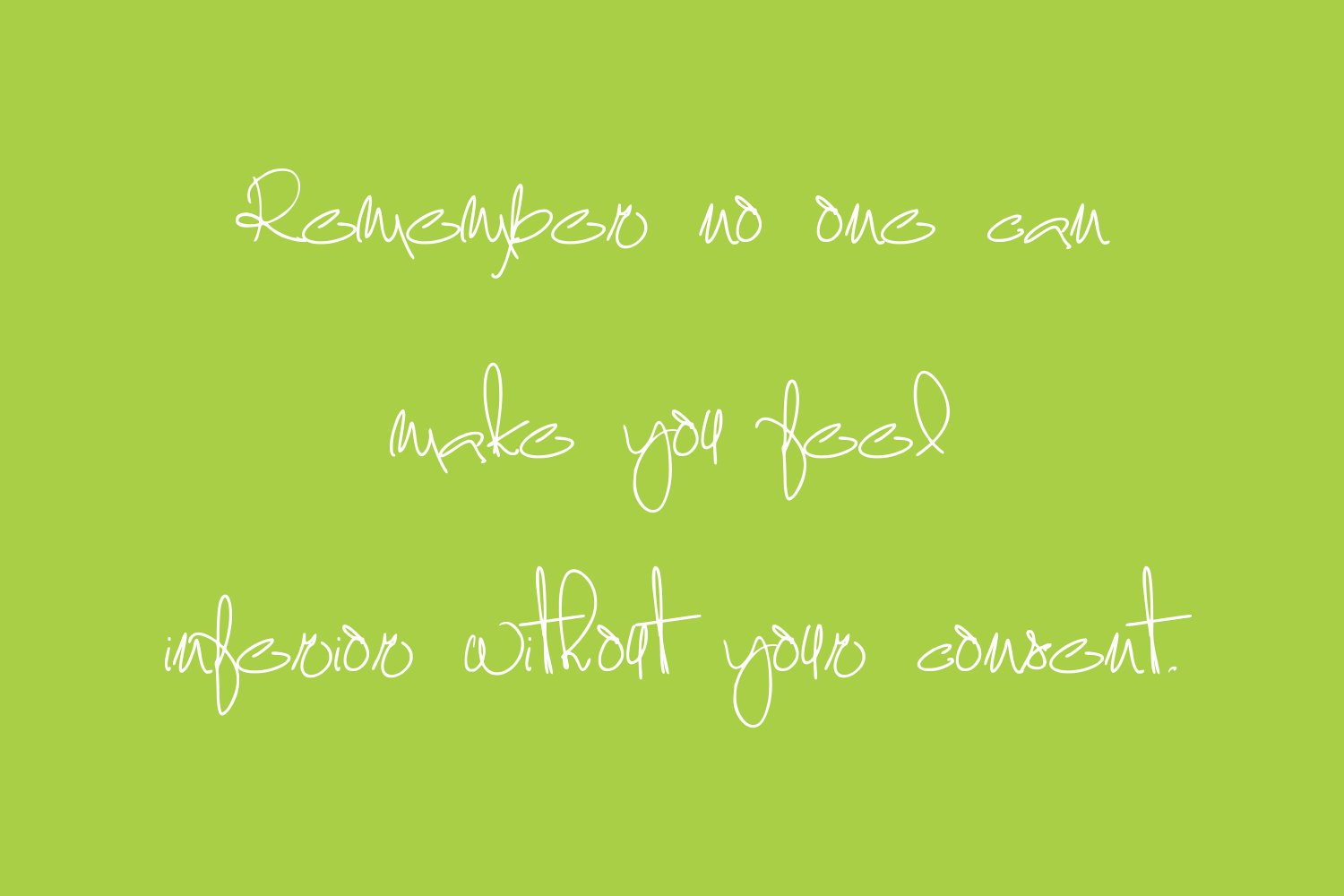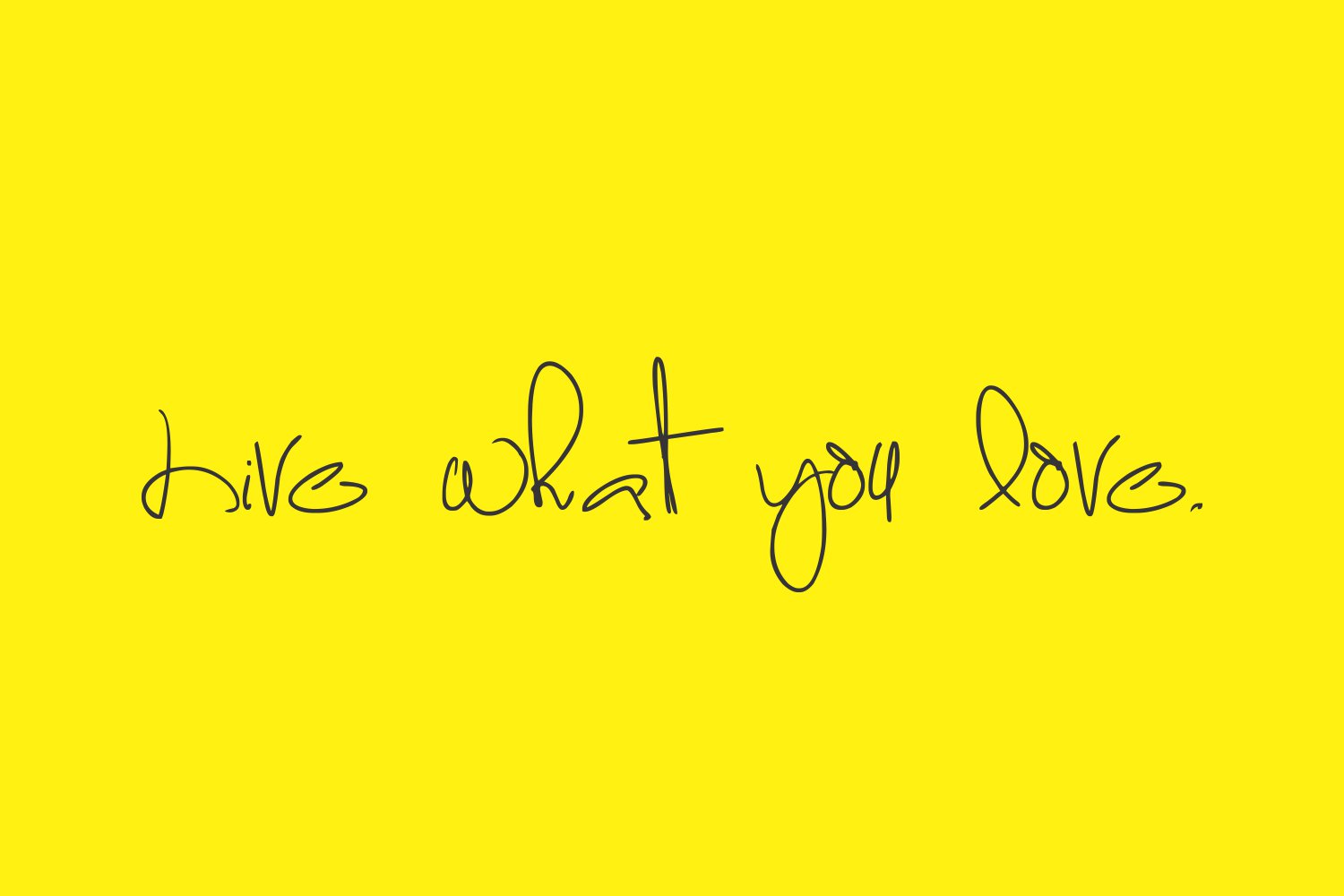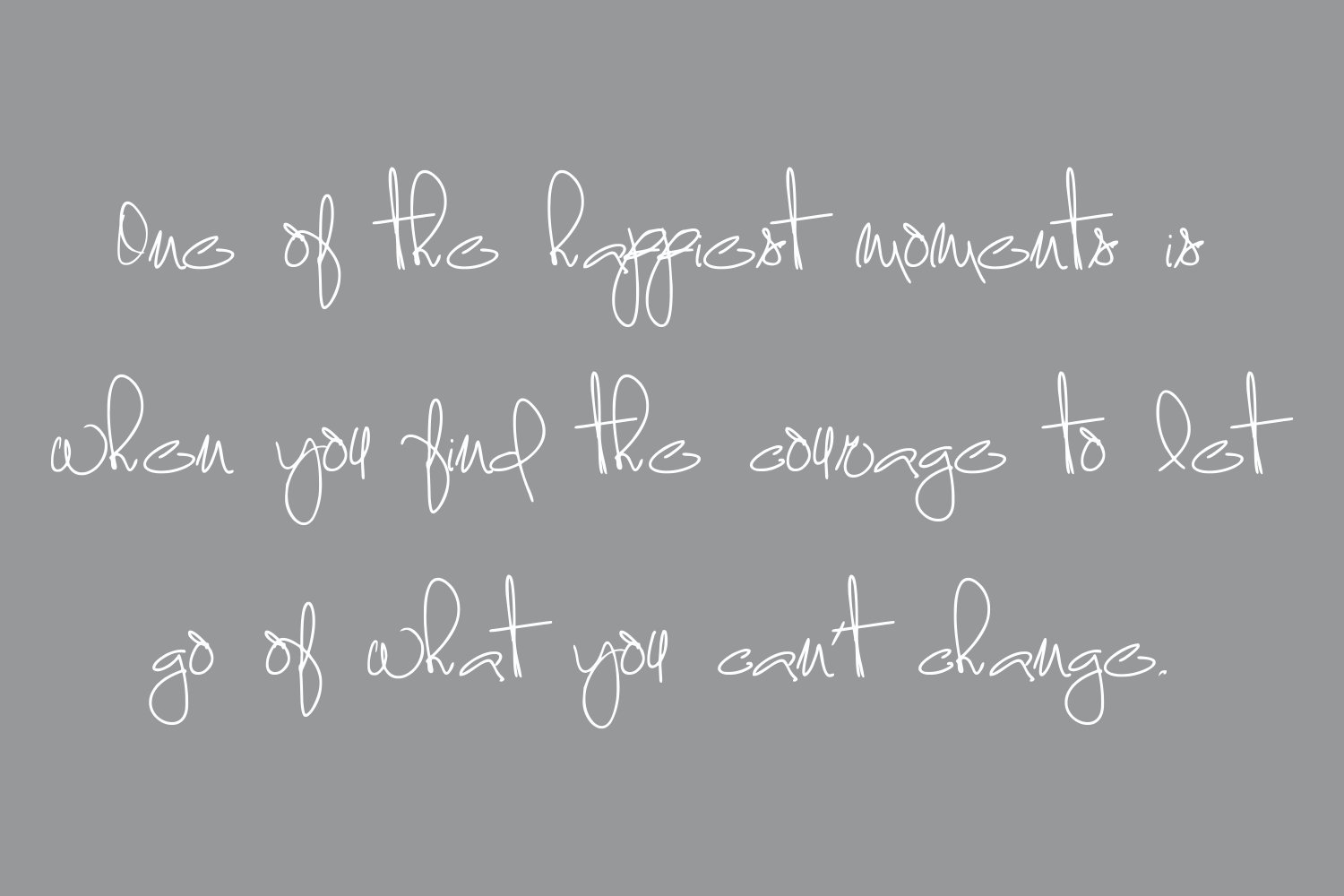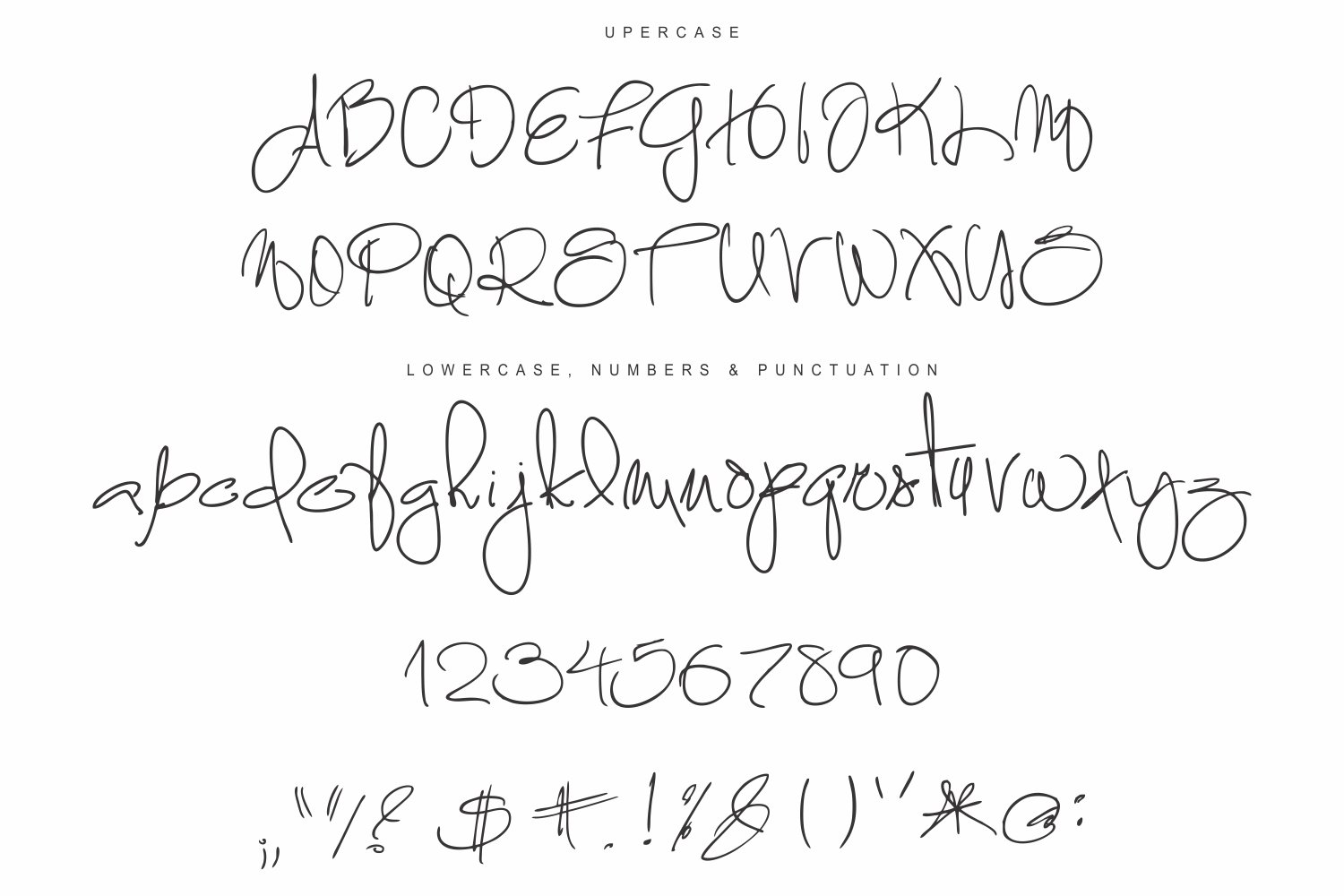
Casual Mix Font: Elevate Your Designs with Elegance and Charm
Are you tired of using the same old fonts in your design projects? Do you want to add a touch of elegance and charm to your creations? Look no further than Casual Mix, a beautifully handcrafted font that is sure to take your designs to the next level. In this article, we’ll dive into the world of Casual Mix, exploring its features, benefits, and uses, and show you why it’s a must-have for designers and crafters alike.
What is Casual Mix Font?
Casual Mix is a stunning hand-made font that features uppercase letters, carefully crafted to provide an elegant and easy-to-read aesthetic. This casual script font is perfect for adding a touch of sophistication and whimsy to your design projects, making it ideal for a wide range of applications, from branding and advertising to crafting and scrapbooking.
Key Features of Casual Mix Font
- Handmade with love: Each letter has been carefully crafted by hand, giving Casual Mix a unique and personal touch.
- Uppercase letters: The font features beautiful uppercase letters, perfect for headings, titles, and emphasis.
- Elegant and easy-to-read: The font’s elegant design makes it easy to read, even at smaller sizes.
- Versatile: Casual Mix can be used for a wide range of design projects, from digital to print.
Benefits of Using Casual Mix Font
So why should you choose Casual Mix for your design projects? Here are just a few benefits of using this amazing font:
- Adds elegance and charm: Casual Mix adds a touch of sophistication and whimsy to your designs, making them stand out from the crowd.
- Improves readability: The font’s easy-to-read design ensures that your message gets across clearly and effectively.
- Increases versatility: With Casual Mix, you can create a wide range of designs, from formal to informal, and everything in between.
- Unique and personal touch: The handmade nature of the font gives your designs a unique and personal touch that sets them apart.
Uses for Casual Mix Font
So, what can you use Casual Mix for? The possibilities are endless! Here are a few ideas to get you started:
- Branding and advertising: Use Casual Mix to create eye-catching logos, ads, and marketing materials that stand out.
- Crafting and scrapbooking: Add a touch of elegance to your scrapbook pages, cards, and other craft projects.
- Digital design: Use Casual Mix in your website designs, social media graphics, and other digital projects.
- Print design: Create stunning print materials, such as brochures, flyers, and posters, with Casual Mix.
- Experiment with sizes and colors: Try out different sizes and colors to see what works best for your design.
- Mix and match with other fonts: Combine Casual Mix with other fonts to create a unique and interesting look.
- Play with textures and patterns: Add texture and pattern to your design to give it an extra boost of interest.